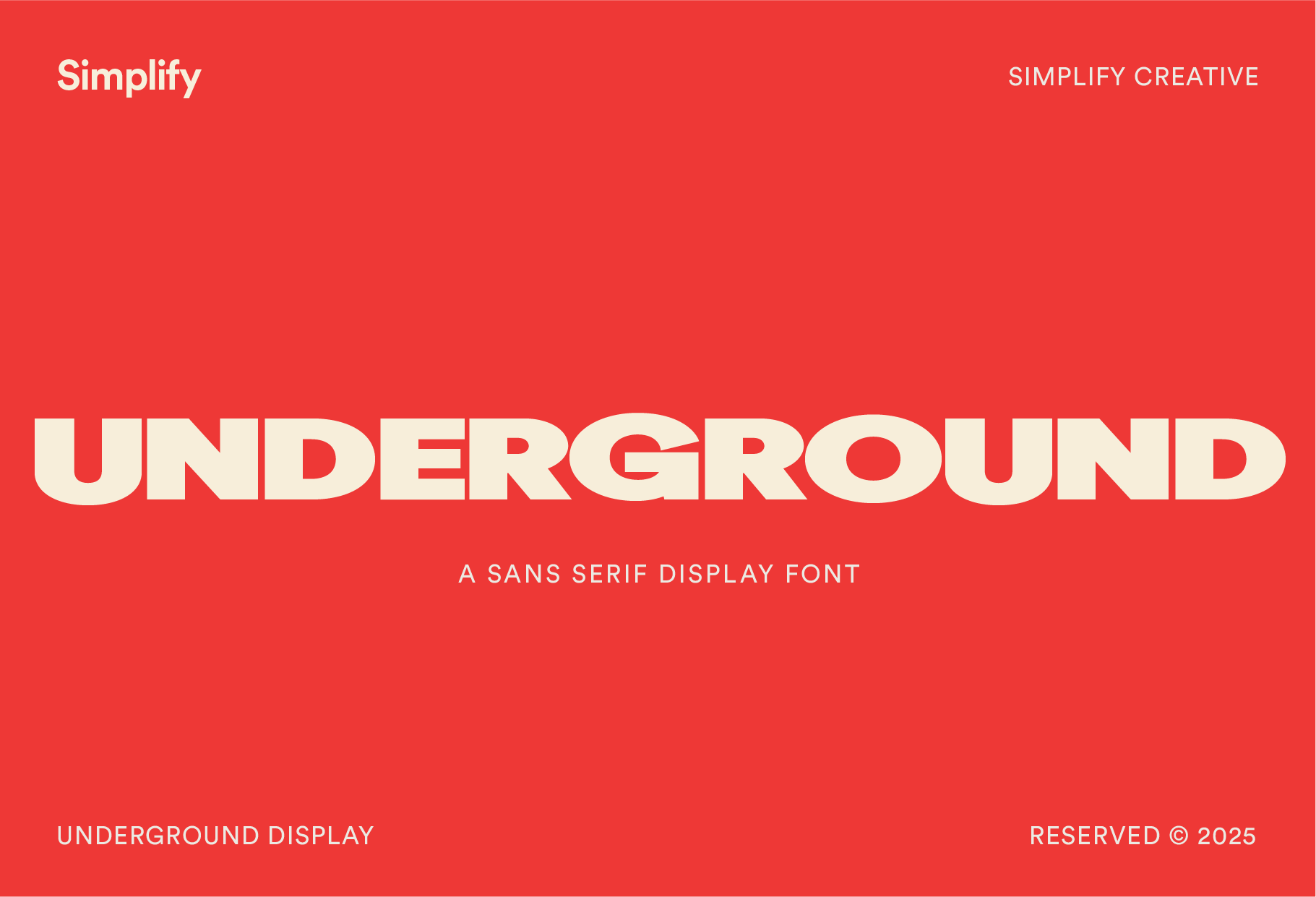
Underground - Bold Display Font
Unruly by nature. Built to be seen.
Underground is a bold sans serif display font designed for those who refuse to blend in. Inspired by gritty skate zines, rebellious ‘90s party flyers, and the punchy Y2K aesthetic, this all-caps typeface brings unapologetic energy to any design.
With its wide-set letters, chunky strokes, and oversized curves, Underground is made to command attention. Perfect for streetwear branding, Y2K-inspired posters, editorial layouts, and album covers that demand to be iconic.
All Uppercase Characters
Numbers & Basic Punctuation
Perfect for headlines, logos, posters, and more
Why Designers Love It
Wider-than-usual letters for serious visual impact
Nostalgic Y2K vibe with a modern edge
A rebellious tone without losing clarity or usability
Perfect for fashion, skate, music, and creative brands